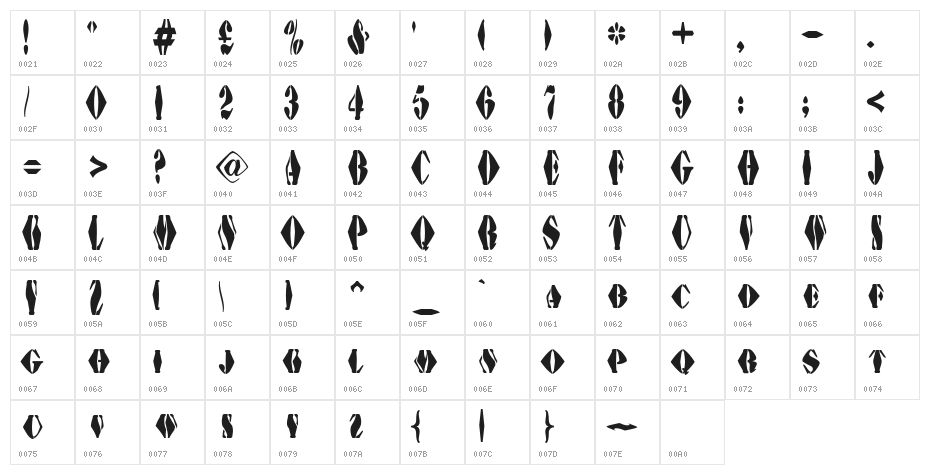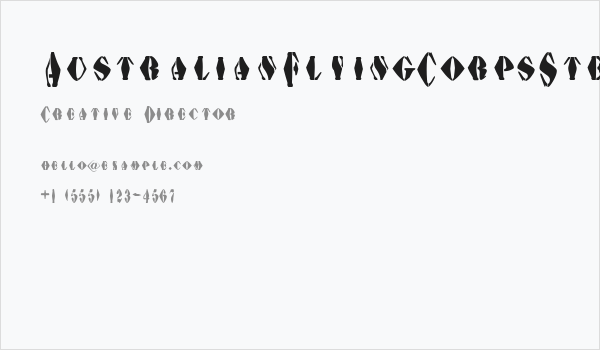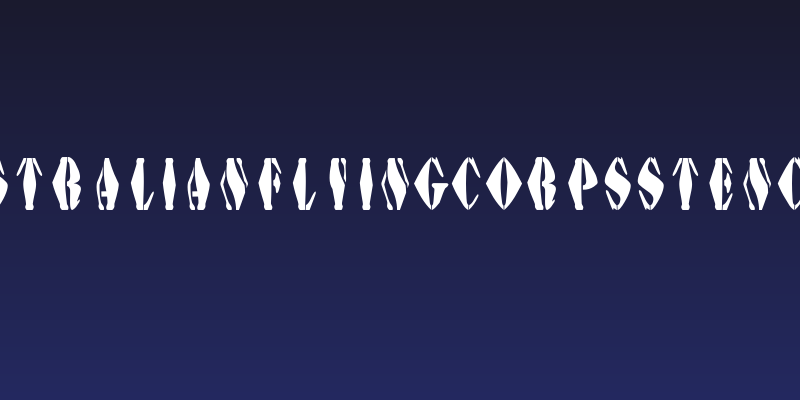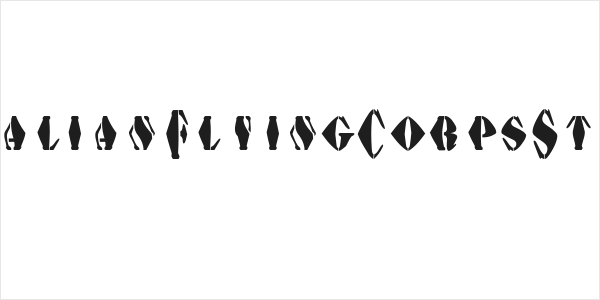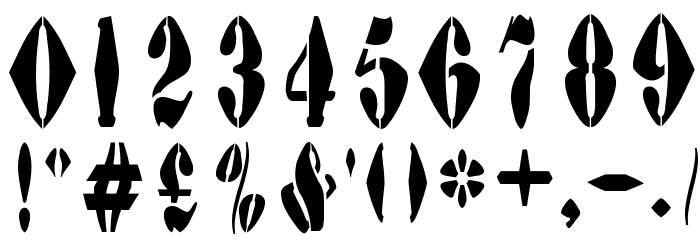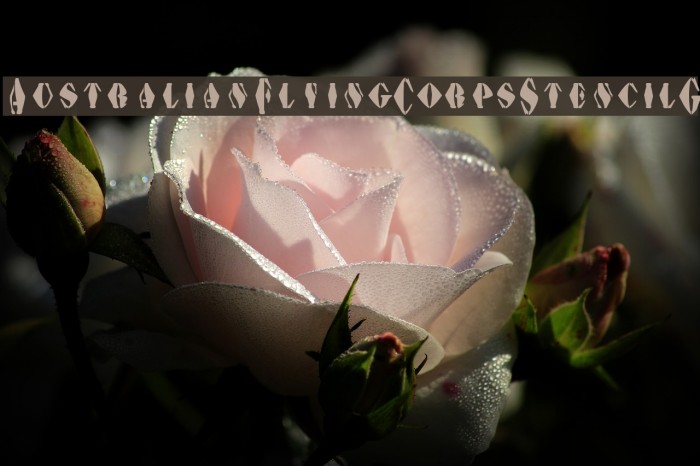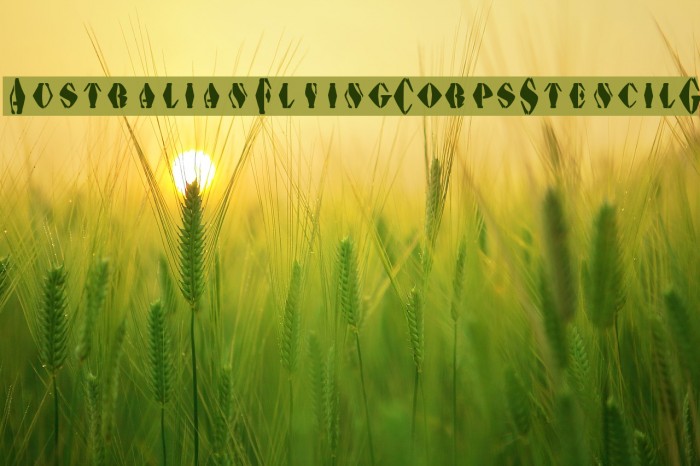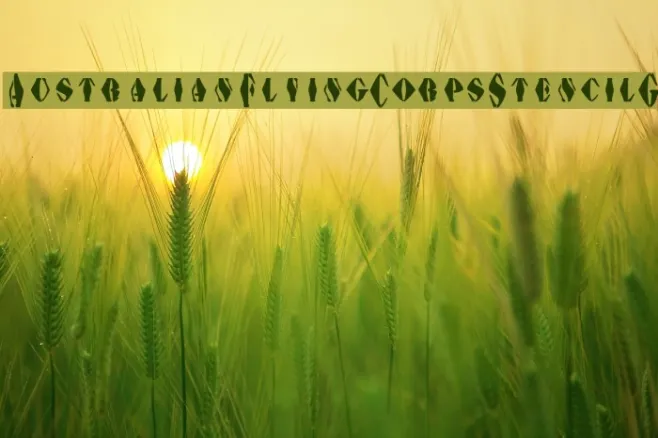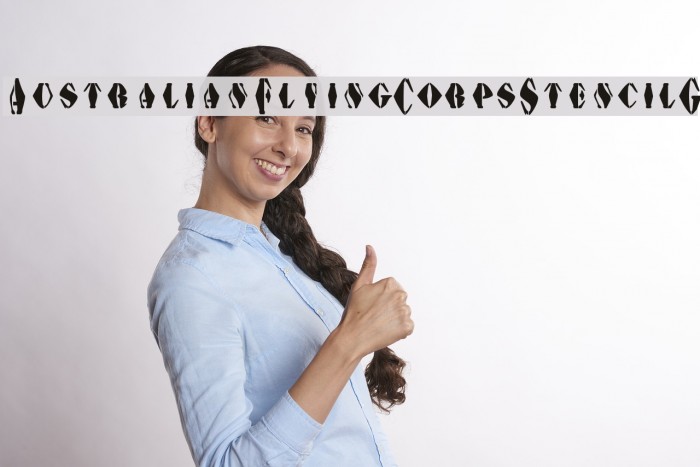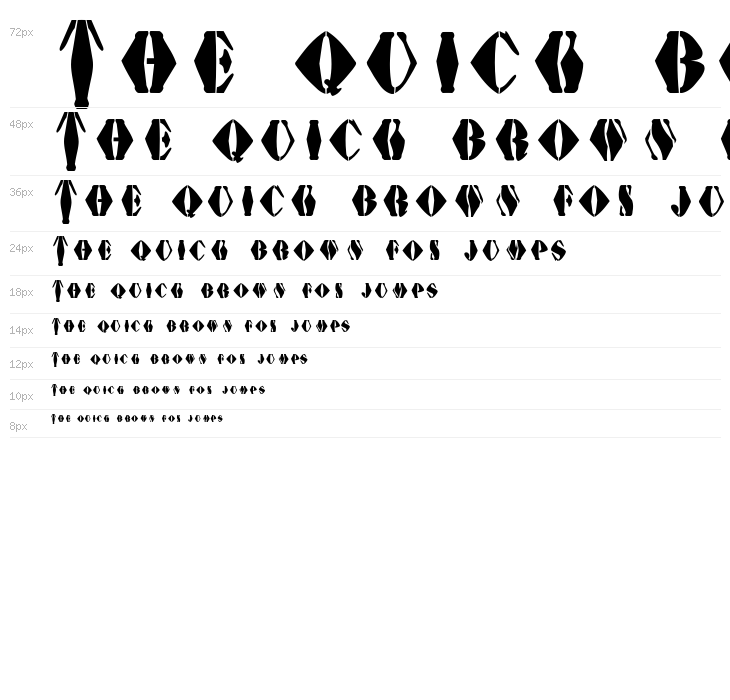
AustralianFlyingCorpsStencilG Font
AustralianFlyingCorpsStencilG Description
This font features a bold, stencil-like design with sharp, angular cuts and a distinct military aesthetic. The characters are heavily stylized, with each letter and number incorporating unique geometric shapes that create a sense of movement and dynamism. The uppercase and lowercase letters maintain a consistent style, ensuring uniformity across text. The numbers and special characters follow the same design principles, making them easily recognizable while retaining the font's overall theme. This font is ideal for projects that require a strong, impactful visual presence.
| Proposed Projects | Ideal for military-themed designs, posters, signage, and branding that requires a strong, impactful look. |